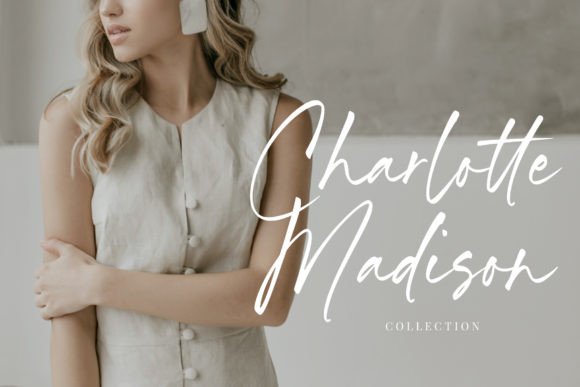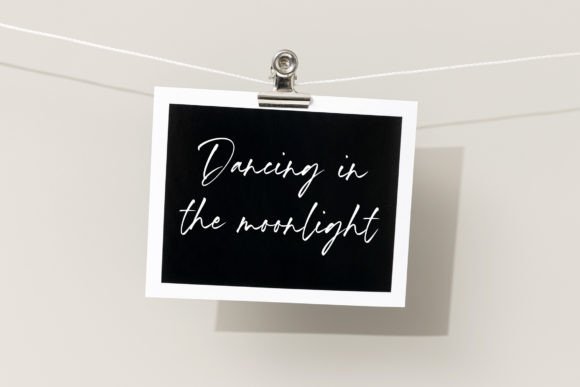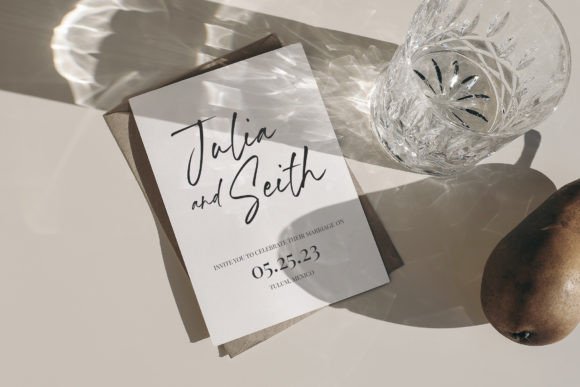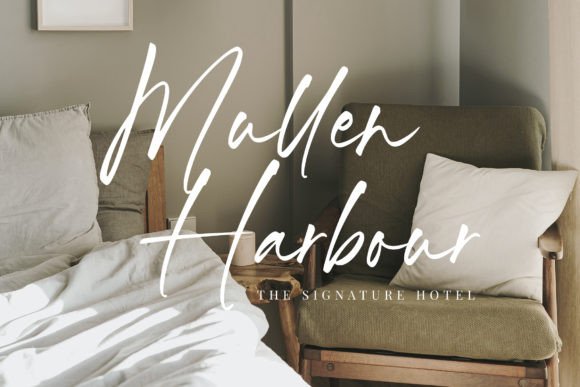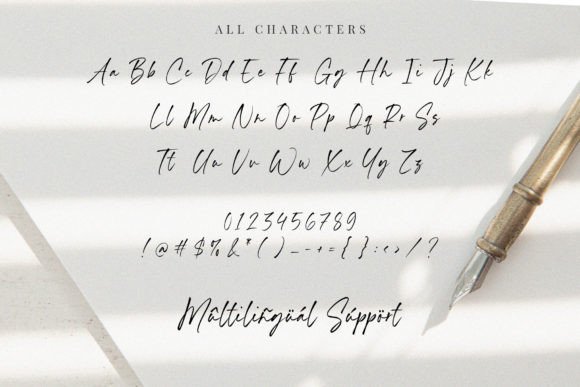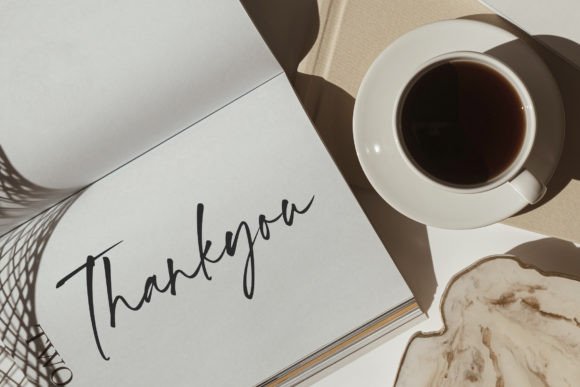
Unleash Your Creativity with the Perfect Signature Font
Have you ever been brainstorming for hours, trying to find the perfect font to match your brand’s unique personality? You’re not alone. The search for that elusive ‘perfect font’ can be a daunting task, but what if I told you that there’s a font that can elevate your designs and leave a lasting impression?
Meet the Benyamin Signature Font, a beautifully crafted handwritten font designed to make your brand stand out. With its elegant and sophisticated feel, it’s perfect for product packaging, branding projects, magazines, social media, weddings, or simply adding a personal touch to your designs. As a designer, you’ll appreciate the versatility and uniqueness that Benyamin Signature Font brings to the table.
Benyamin Signature Font Key Features
- Font Family: Benyamin Signature Font
- Unique Characteristics: Handwritten, signature-style font with elegant and luxurious feel, suitable for formal and high-end applications, such as wedding invitations, business cards, and certificates.
Benyamin Signature Font Review
As a designer, I was excited to try out the Benyamin Signature Font. Here’s my honest review:
- The font is highly customizable, allowing users to adjust the font size, color, and style to suit their needs.
- The font is suitable for various design projects, from business cards to wedding invitations.
- The font is available in several weights and styles, making it easy to find the perfect match for your design.
- The font may not be suitable for large blocks of text, as it can become overwhelming.
- The font is not as versatile as some other fonts on the market, limiting its use in certain design projects.
Overall, I think the Benyamin Signature Font is a solid choice for designers who want a high-quality, customizable font. While it may have some limitations, it’s a great option for those who want a unique and stylish font for their designs.
Getting the Most Out of the Benyamin Signature Font
Here are some tips to get the most out of the Benyamin Signature Font:
1. Use it for personal branding, such as signatures, business cards, and letterheads.
2. Apply it to headings and titles to create a consistent visual identity.
3. Experiment with different font sizes and colors to create a unique look.
The Benyamin Signature Font is ideal for:
1. Personal branding and identity.
2. Business cards and stationery.
3. Headings and titles in presentations and documents.
Alternatives to Benyamin Signature Font
Pacifico is a beautiful, elegant script font perfect for creating a sophisticated and luxurious feel in your designs. It’s ideal for use in branding, invitations, and other high-end projects. Compared to Benyamin Signature Font, Pacifico has a more refined and delicate appearance, making it suitable for more formal occasions.
Carolyna Pro is a modern script font that’s perfect for creating a stylish and professional look in your designs. It’s great for use in branding, packaging, and advertising. Compared to Benyamin Signature Font, Carolyna Pro has a more contemporary and edgy feel, making it suitable for modern and trendy projects.
Great Vibes is a beautiful, elegant script font that’s perfect for creating a warm and inviting feel in your designs. It’s ideal for use in branding, invitations, and other creative projects. Compared to Benyamin Signature Font, Great Vibes has a more relaxed and casual appearance, making it suitable for more laid-back and creative projects.
Alex Brush is a elegant script font that’s perfect for creating a sophisticated and refined feel in your designs. It’s great for use in branding, invitations, and other high-end projects. Compared to Benyamin Signature Font, Alex Brush has a more classic and timeless appearance, making it suitable for traditional and formal projects.